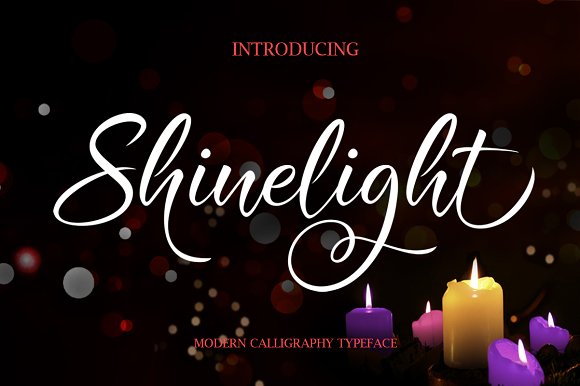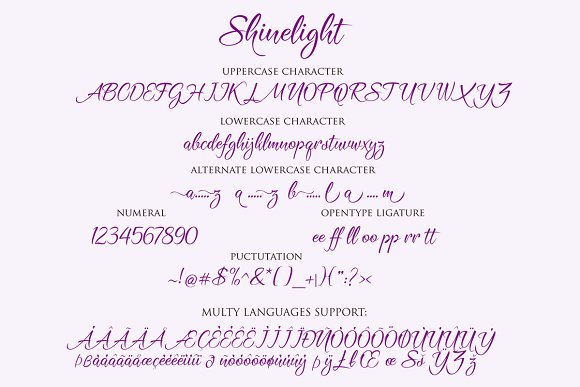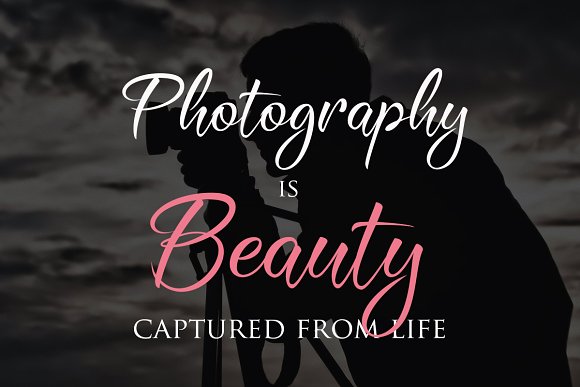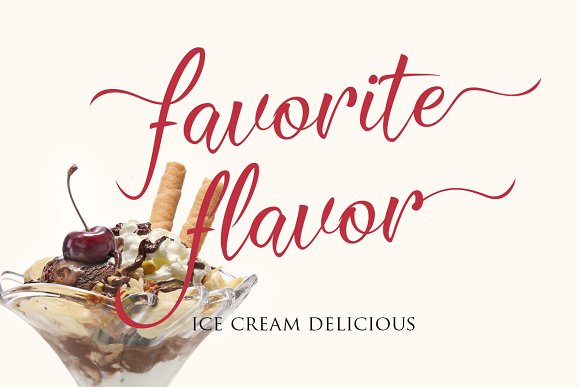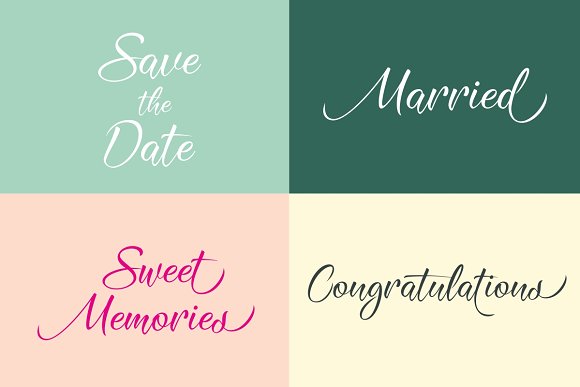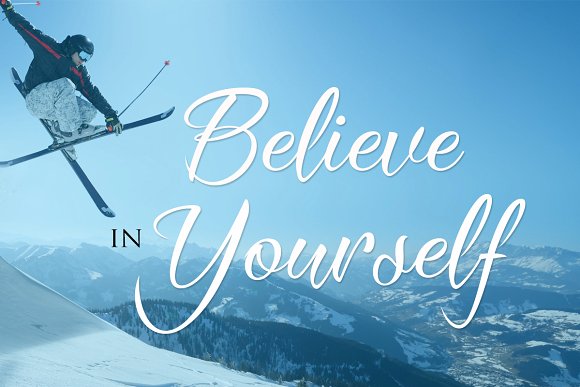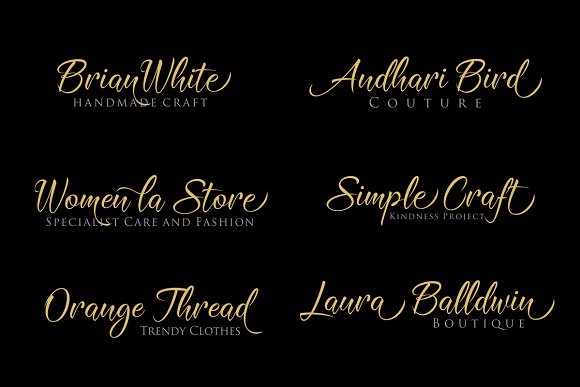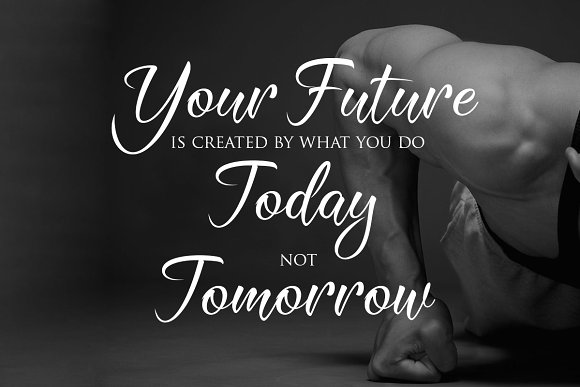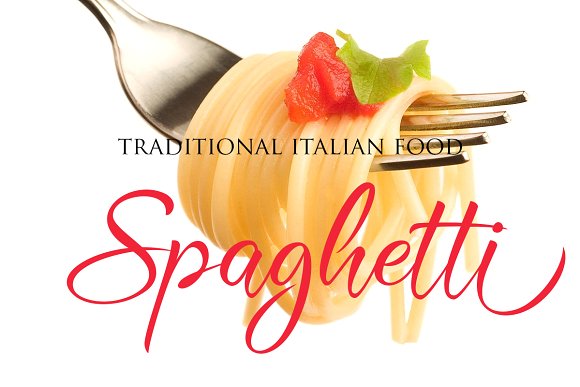
Shinelight Font
About Shinelight Font
Shinelight is a handwritten, modern calligraphy font. It features smooth lines and the characters of this font weld together perfectly.